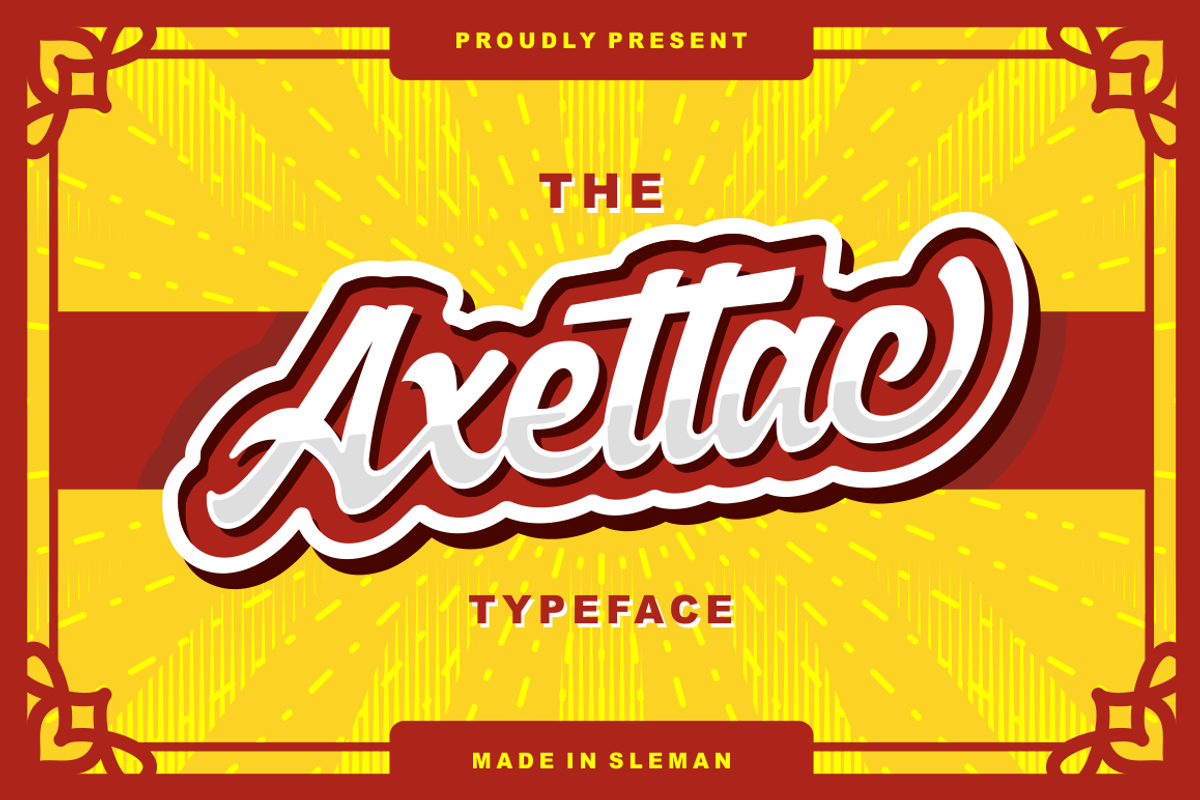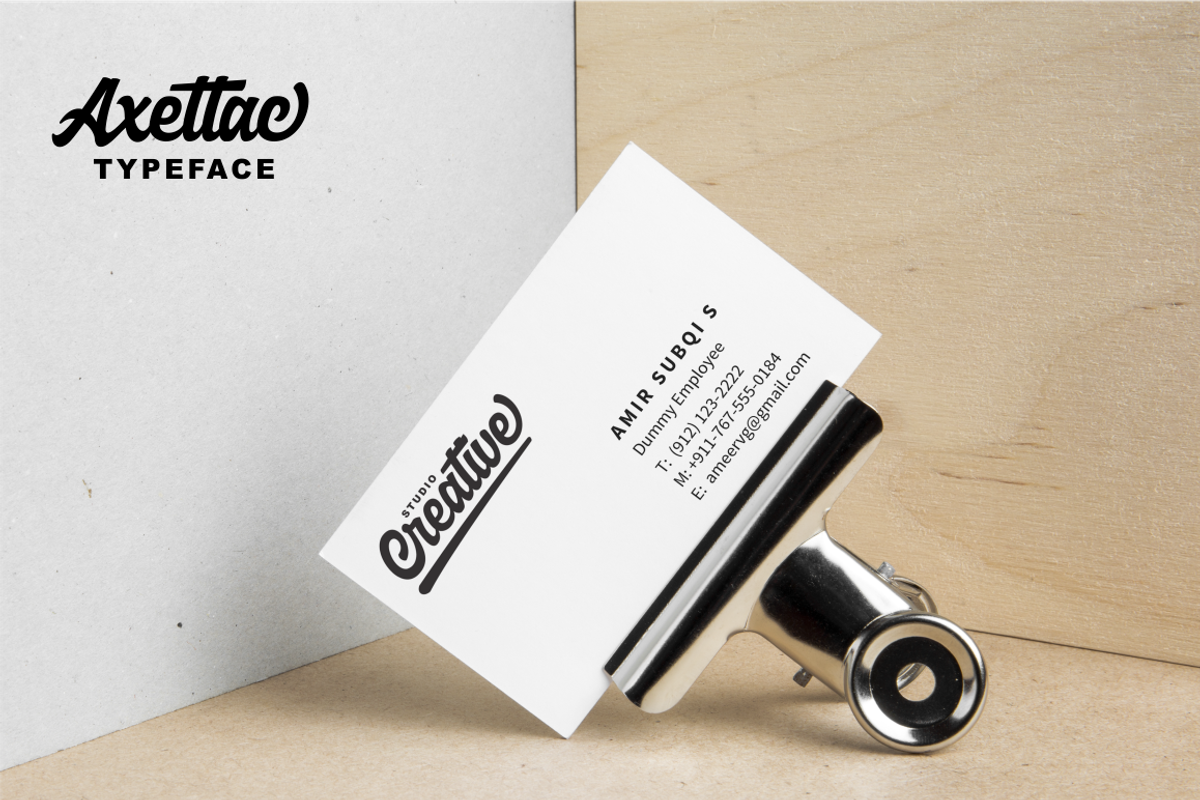
Axettac Script
Hi Everyone !.. Let us Introduce our second font debut. It's called Axettac , It's included Script as main font. This font is a bold script typeface. This font is perfect for logotype, label design. poster, flyer, display, sticker and many more.
- Standard Character ( Uppercase, Lowercase, Numeric, Punctuation )
- Alternates Character
- Extra Swashes ( as Alternate - SS07 )